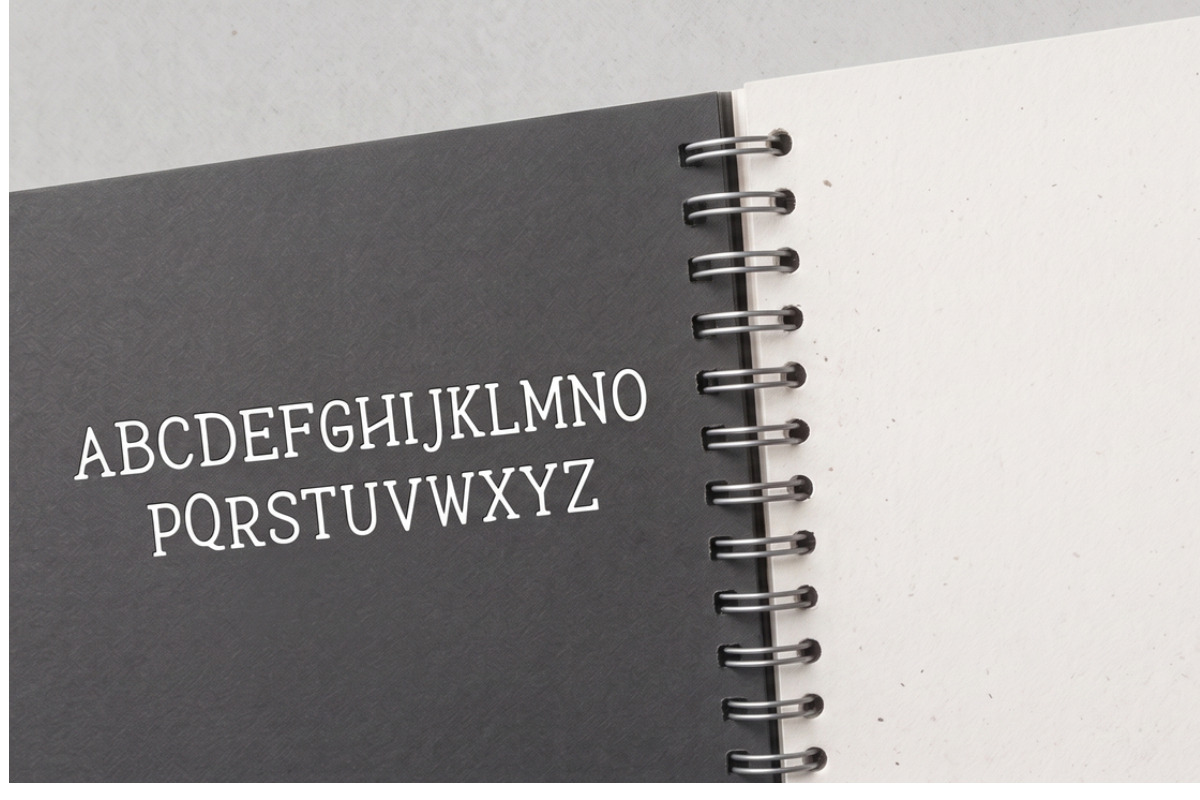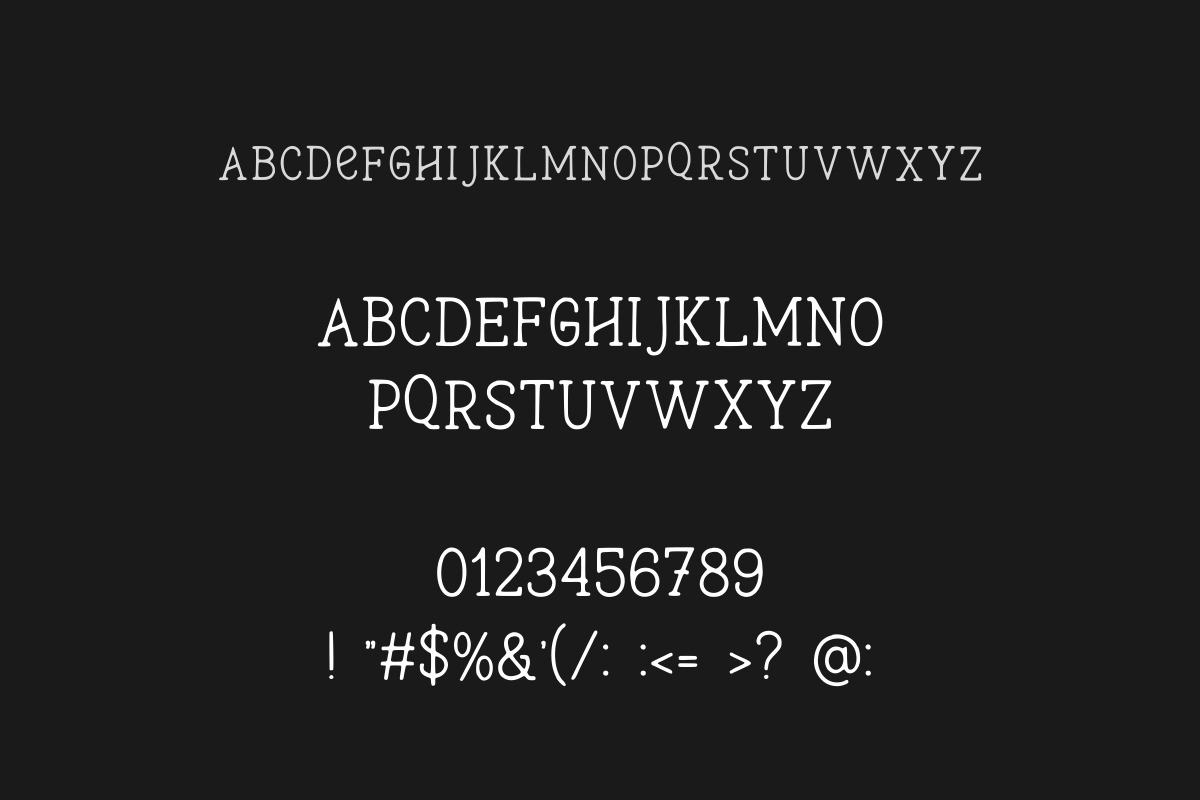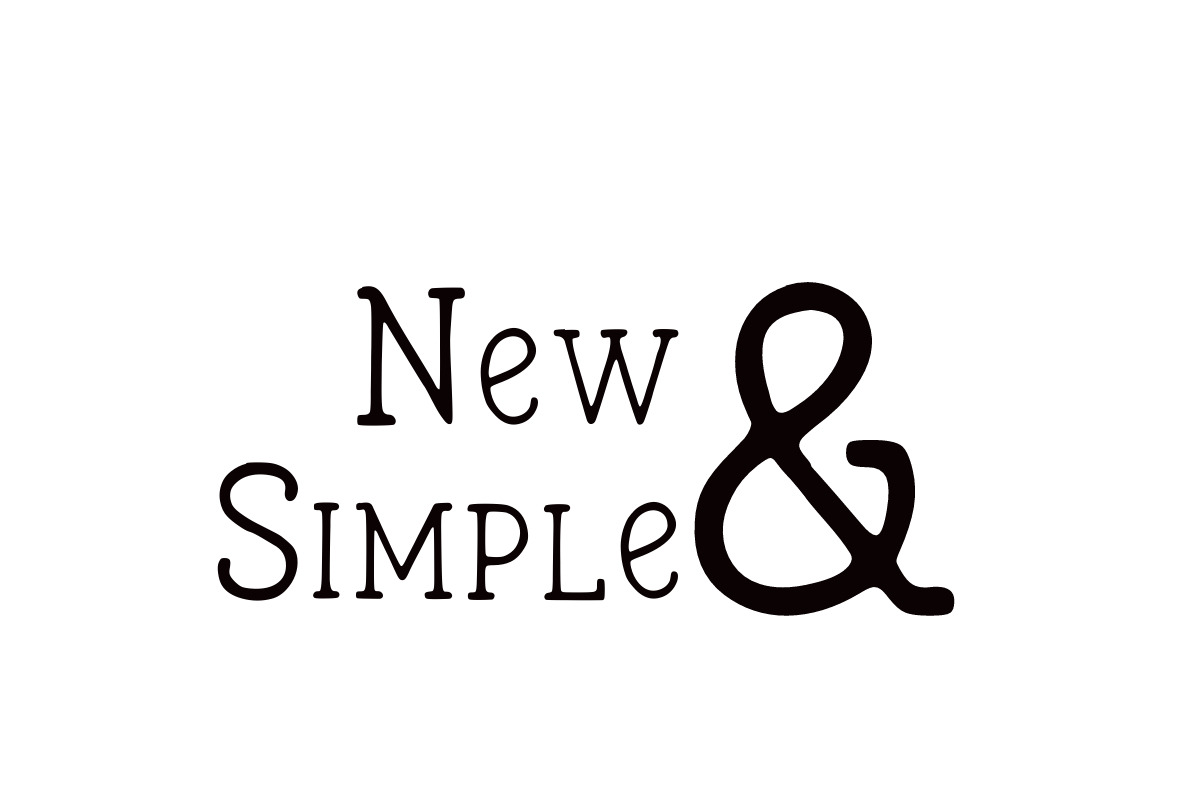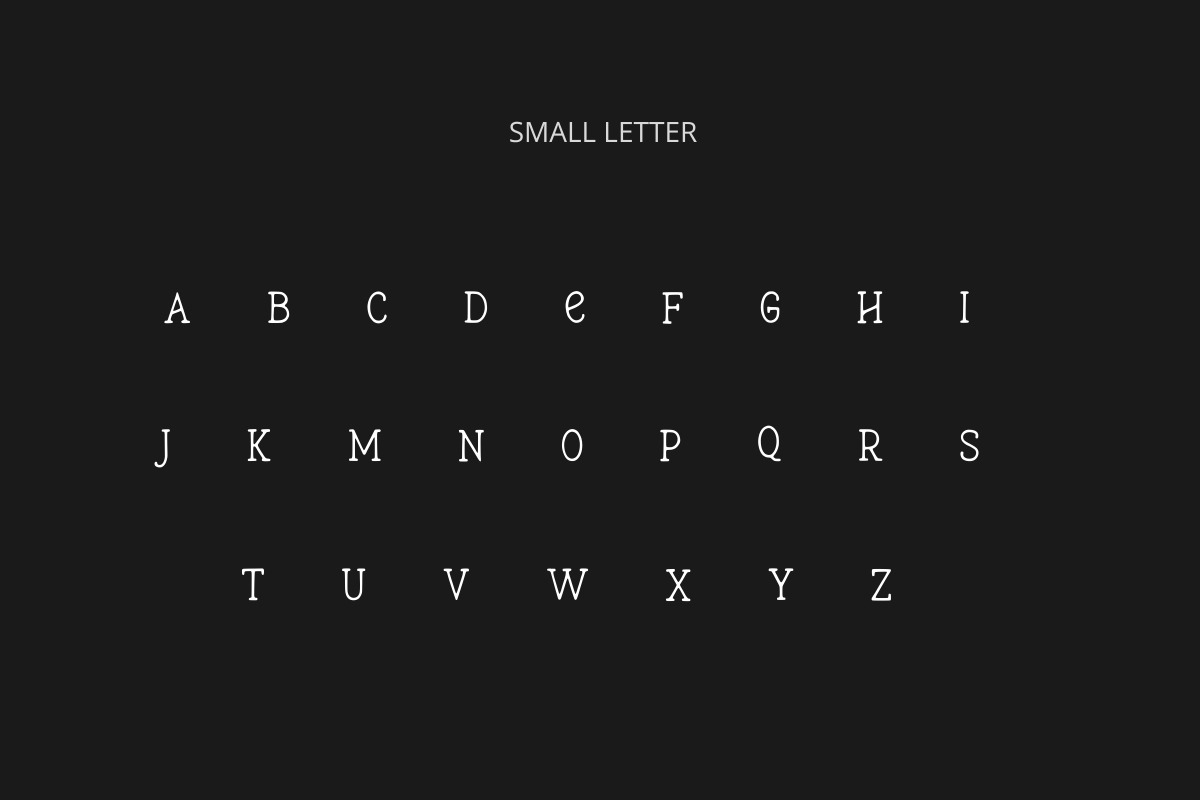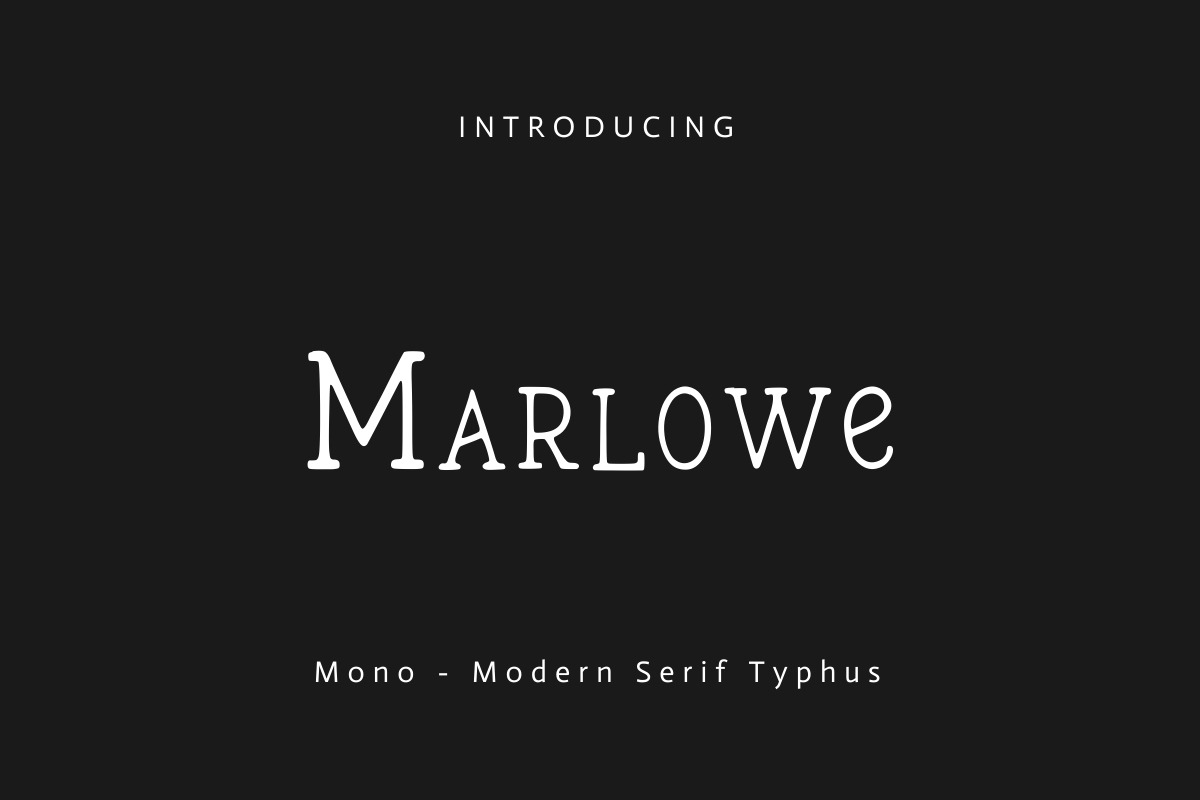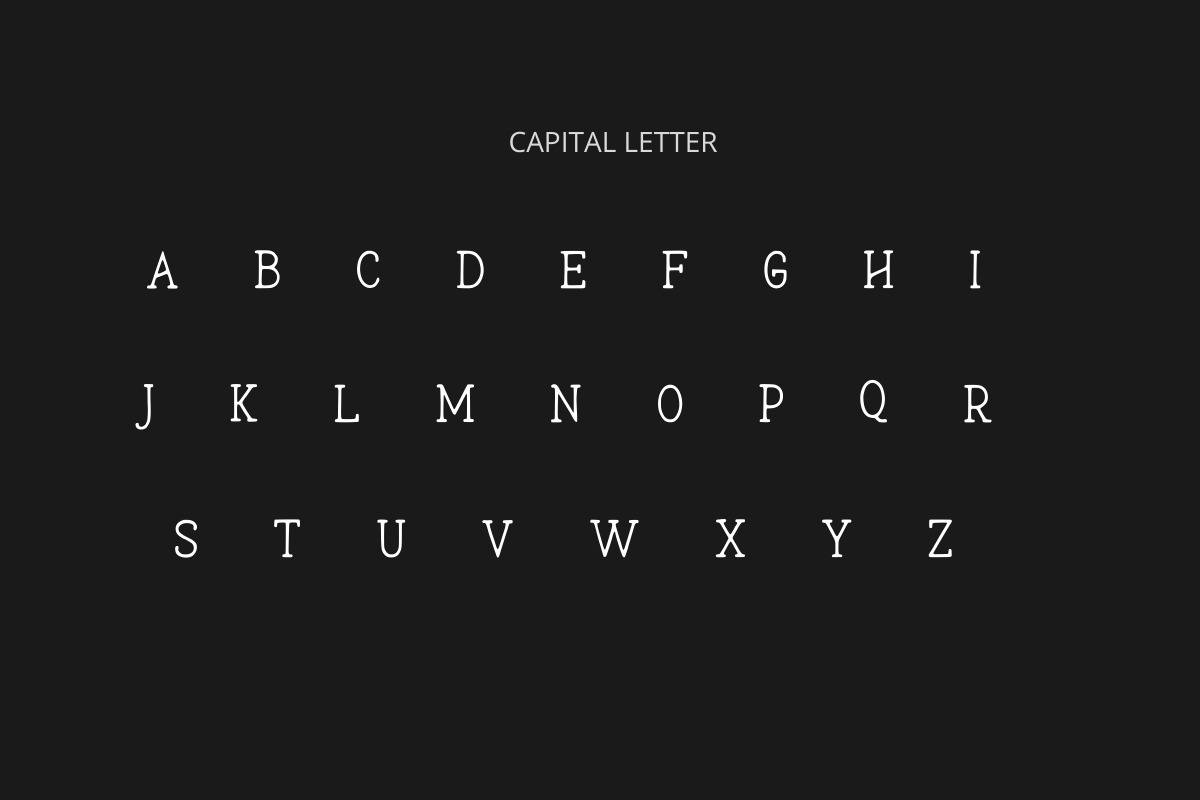
Marlowe Modern Mono Serif Typeface
Introducing Marlowe — a mono modern serif typeface that carries the quiet intelligence of a well-worn library and the precise rhythm of a typewriter. Thin, refined strokes meet crisp bracket serifs in a monospaced construction that feels both timeless and contemporary, instantly recognizable and deeply versatile.
What makes Marlowe truly distinctive is its small-cap lowercase design: the lowercase letters are rendered as elegant small capitals, giving every line of text a structured, classical typographic rhythm that feels at home on book covers, literary magazines, author brands, and refined editorial layouts. This isn't just a font — it's a voice.
• Monospaced construction gives every character equal weight and rhythm — perfect for editorial precision
• Small-cap lowercase design creates a classical typographic look without the need for separate small cap glyphs
• Thin, refined strokes and crisp serifs make it feel literary, intelligent, and considered
• Deeply versatile: works as a display headline, a logo wordmark, a book title, and more
• Evokes the heritage of typewriter typography while remaining fully modern and screen-ready
• Strong in both mixed case and ALL CAPS — two completely different moods, one font
• Uppercase letters: A B C D E F G H I J K L M N O P Q R S T U V W X Y Z
• Lowercase letters: a b c d e f g h i j k l m n o p q r s t u v w x y z (rendered as elegant small capitals — a defining design feature of this typeface)
• Numbers: 0 1 2 3 4 5 6 7 8 9
• Punctuation & symbols: ! " # $ % & ' ( / : ; < = > ? @
• Single style — mono modern serif, optimised for display and headline use
• No additional weights, italic variants, or alternate cuts — what you see in the previews is exactly what you get
- Why do the lowercase letters look like small capitals?
- That is a deliberate and defining design feature of Marlowe. The lowercase letters are drawn as elegant small capitals, giving the typeface a classical typographic rhythm inspired by traditional letterpress and editorial typography. This makes Marlowe exceptionally versatile — it reads beautifully in mixed case for display headlines and wordmarks, and powerfully in ALL CAPS for logo applications.
- Is Marlowe suitable for body text?
- Marlowe is a display and headline typeface, best used at larger sizes (24pt and above) where its delicate serif details and small-cap lowercase feature can be appreciated. For body copy, pair it with a clean serif or neutral sans-serif such as Lora, Libre Baskerville, or Source Sans Pro for a refined literary look.
- What makes Marlowe different from other mono serif fonts?
- A: Most monospaced serif fonts are functional and code-focused. Marlowe is different — it is designed purely for display and editorial use, with a refined thin stroke weight, crisp bracket serifs, and the distinctive small-cap lowercase that gives it a voice and personality no standard mono font has. It sits at the intersection of the typewriter tradition and classical book typography.